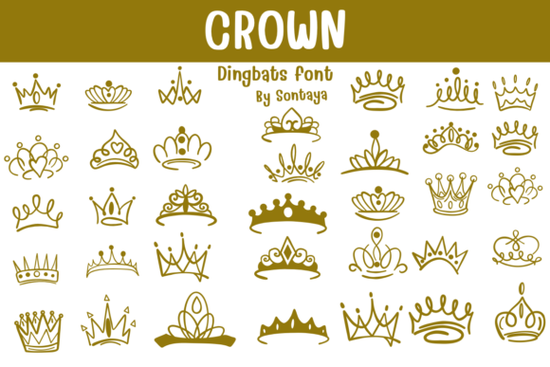
If you are looking to add a touch of royalty to your designs without drawing every element by hand, a specialized icon set might be exactly what you need. The Crown Font offers a unique solution for crafters and designers who want instant access to hand-drawn tiaras and royal symbols. Instead of searching for individual PNG files, this tool lets you type specific keys to generate vector-ready graphics directly in your design software. This saves significant time when you are working on tight deadlines for clients or preparing products for a busy sales season.
Many creators misunderstand how dingbat fonts work compared to standard text fonts. Rather than producing letters and numbers, this specialty character set generates images. Each key on your keyboard corresponds to a unique vector illustration, such as a geometric star point or a whimsical heart structure. Because these are vector-based, you can scale them up for large signage or down for tiny jewelry tags without losing quality. This flexibility is crucial for print-on-demand sellers who need one file to work across different products like t-shirts, mugs, and posters.
What creative projects benefit most from royal icons?
The versatility of this typeface allows it to bridge the gap between playful fairytale storybooks and trendy artisan lifestyle identity systems. For example, independent kids' apparel branding often requires graphics that feel magical yet modern. You can use these silhouettes to create patterns for baby onesies or birthday party invitations. If you run a boutique pastry shop, these icons work beautifully on packaging for cupcakes or cookies meant for celebrations. The fluid monoline loops give a handcrafted feel that resonates with customers looking for something personal rather than mass-produced.
Planner enthusiasts also find immense value in decorative symbol sets. You can create custom planner stickers that highlight special dates like anniversaries or achievements. Since the graphics include crisp geometric elements, they fit well in both digital planners and physical journals. If you enjoy mixing different styles, you might consider browse more icon-based typefaces to find complementary shapes that match this royal theme. Having a diverse library allows you to maintain a consistent aesthetic across all your creative canvases.
How does the hand-drawn style impact branding?
Choosing the right visual style is essential for establishing a recognizable brand identity. The organic brush sweeps found in this collection suggest warmth and approachability. This is particularly effective for handmade jewelry cards or high-impact social media graphics that need to stop the scroll. When customers see a hand-drawn crown, they associate the product with care and attention to detail. It moves away from the sterile look of corporate logos and invites the viewer into a more intimate consumer experience.
For those targeting a younger demographic, combining royal motifs with other playful elements can create a unique niche. You might think about pairing it with playful animal sketches to create a whimsical kingdom theme for children's products. This combination works well for nursery decor or storybook illustrations. The key is to ensure the line weights match so the final design looks cohesive. Consistency in line thickness helps maintain professionalism even when mixing different graphic elements.